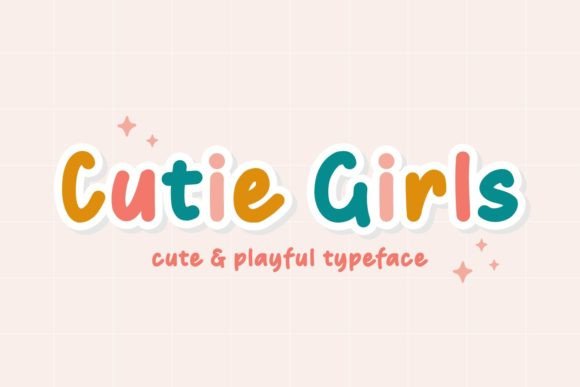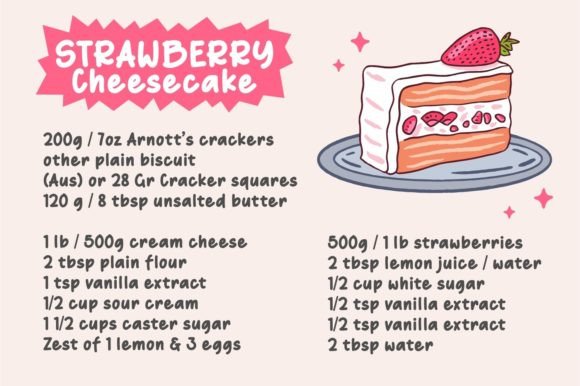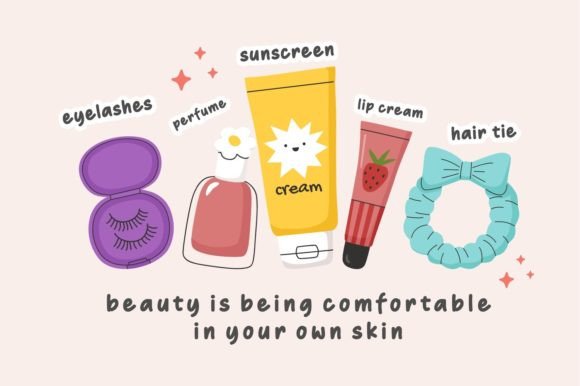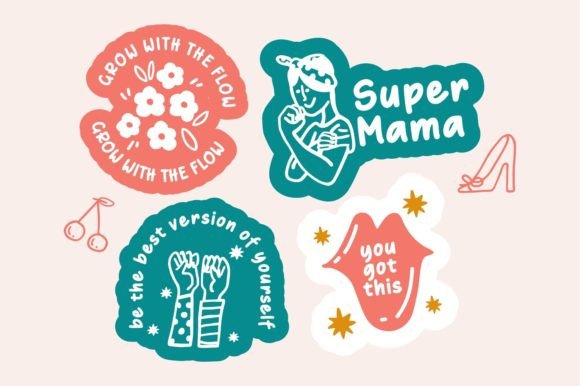
Cutie Girls Font: A Playful Handwritten Font for Cute Cricut Crafts
About the Cutie Girls Font
Discover the charm of Cutie Girls Font. This font is a perfect blend of modern aesthetics and classic appeal. Introducing Cutie Girls – an irresistibly sweet and playful handwriting font. Perfect for bringing a touch of whimsy to everyday jottings, foodie recollections, academic projects, charming stickers, beauty merchandise, and logo-branding, Cutie Girls encapsulates all things delightful and chic. The ultimate resource to infuse any cute girl-themed project with an extra sprinkle of charm. Explore the captivating world of Cutie Girls font, where elegance meets everyday cuteness.
Cutie Girls thrives in applications requiring a lighthearted and approachable aesthetic. Ideal uses include short headlines, social media graphics, packaging for children’s products or sweet treats, and branding for businesses focused on youthful appeal or handmade crafts. It works particularly well in situations where a hand-drawn, personal touch is desired.
However, its playful nature makes it less suitable for body text or extended reading. The informal style would also be inappropriate for formal documents or corporate branding requiring a sense of gravitas. Avoid using it in user interfaces or applications demanding high readability.
Pair Cutie Girls with a clean sans-serif like Montserrat for a balanced contrast, or a more geometric sans-serif like Futura for a modern twist. For a softer pairing, consider a script font with a similar level of playfulness, but avoid overly ornate scripts which might clash. Its core personality is undeniably playful and charming, conveying a youthful and approachable energy.
Cutie Girls Font Usage Examples